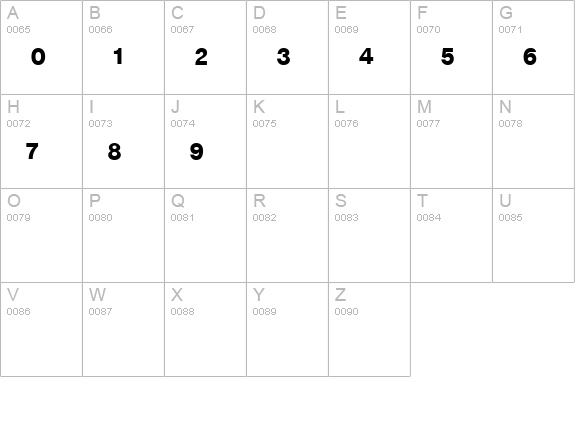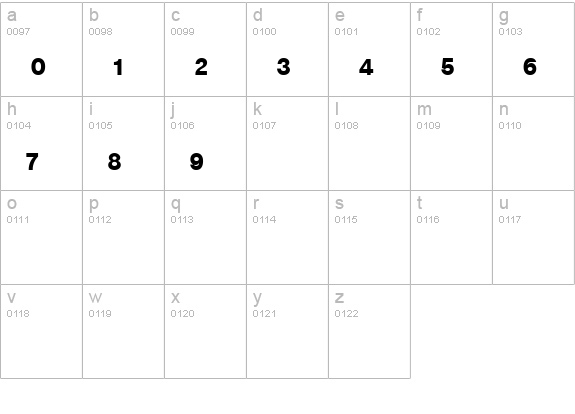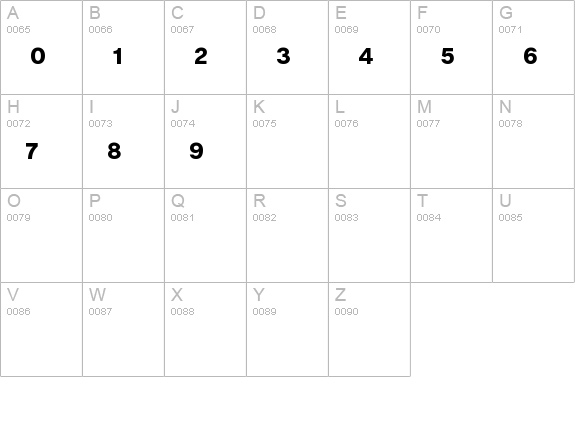
ChaletBookTTFrac Bold Font Details
ChaletBookTTFrac Bold is a strong, high-contrast variant in the ChaletBookTTFrac typeface family \xE2\x80\x94 well suited to headlines, attention-grabbing titles, and strong calls-to-action.
ChaletBookTTFrac Bold font is a bold and impactful typeface that exudes elegance and sophistication. With its clean lines and modern look, this font is perfect for creating eye-catching designs that demand attention. The bold weight adds a striking element to any project, making it ideal for headings, titles, and other prominent text. The best part is that ChaletBookTTFrac Bold font is completely free to download at FontsMarket.com. This means you can easily add this stylish font to your collection without any cost. Whether you're a designer looking to elevate your projects or a hobbyist wanting to explore new typography options, ChaletBookTTFrac Bold font is a great choice that won't break the bank. Download ChaletBookTTFrac Bold font today and start incorporating its bold and dynamic style into your designs. With its versatility and modern aesthetic, this font is sure to make a statement in any project.